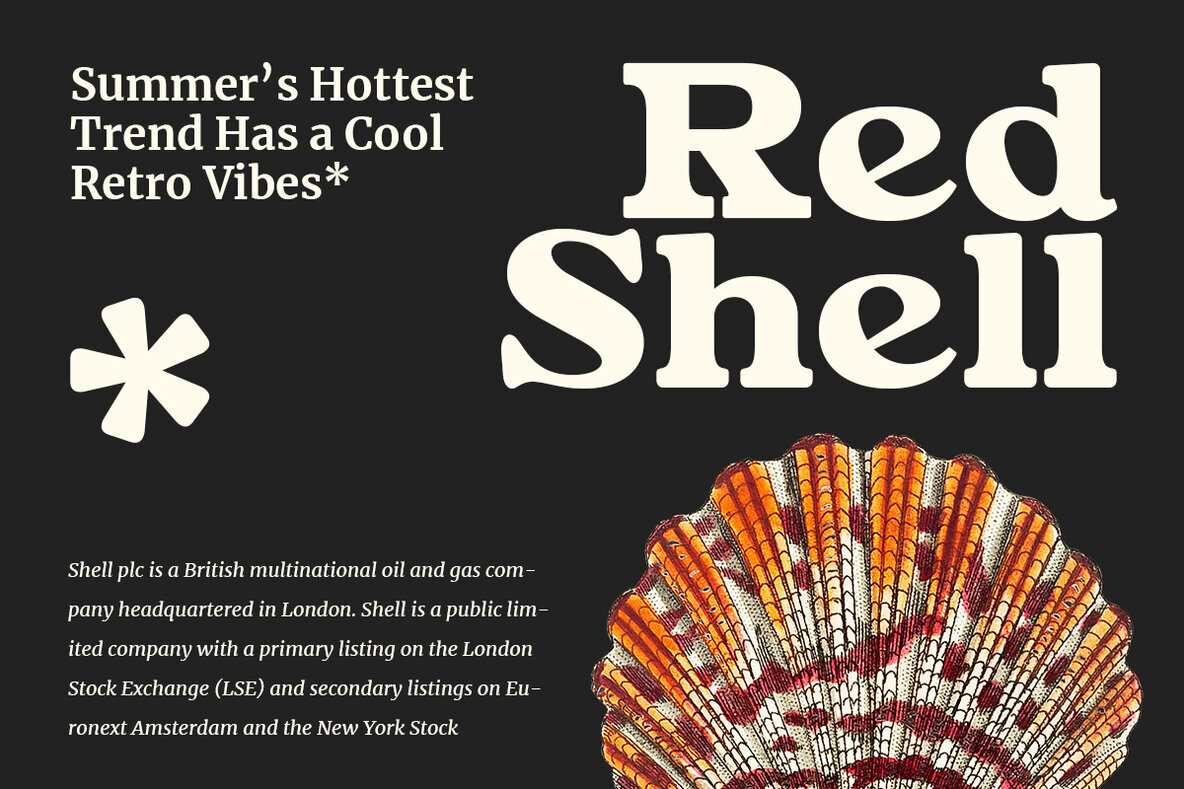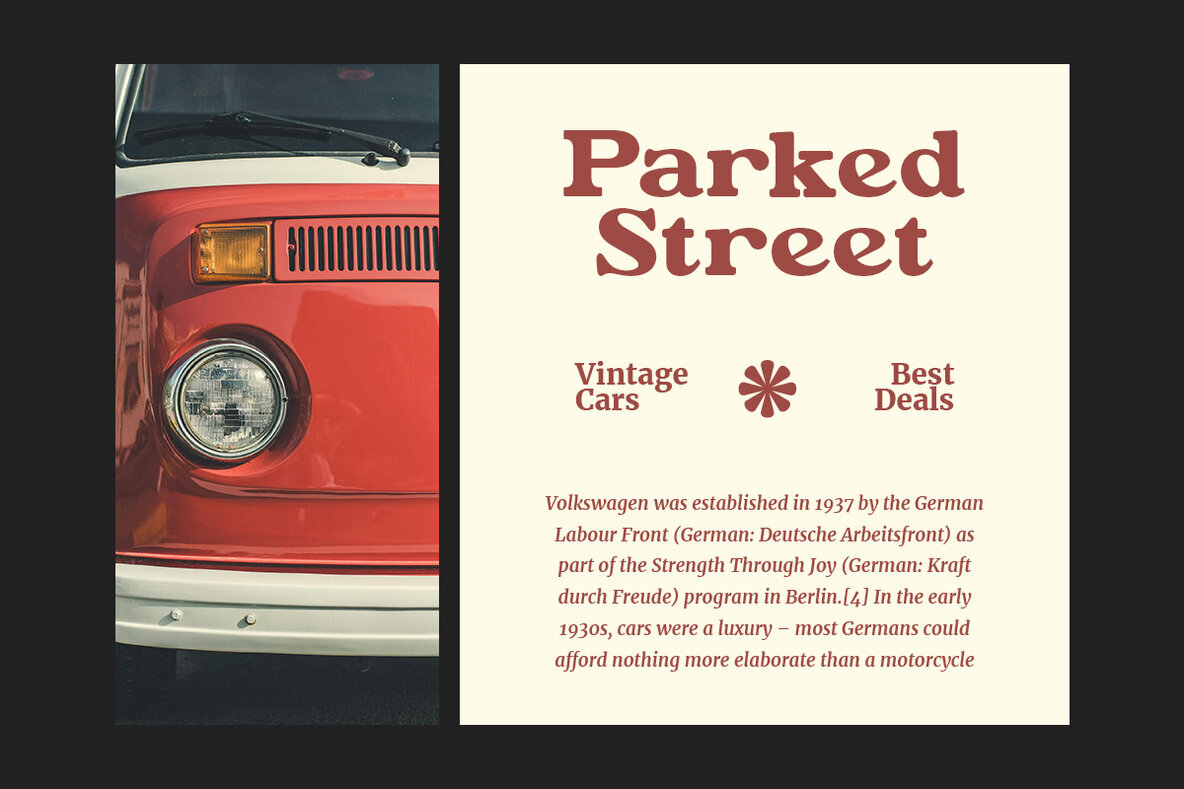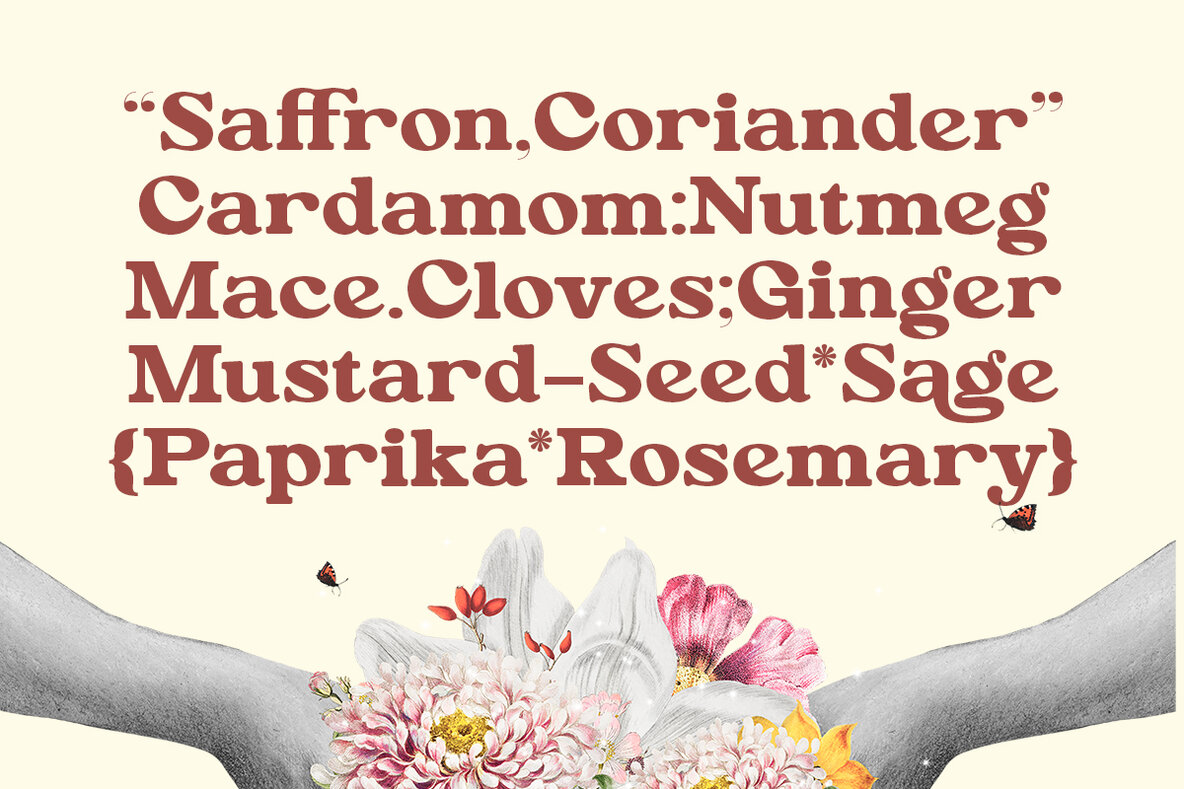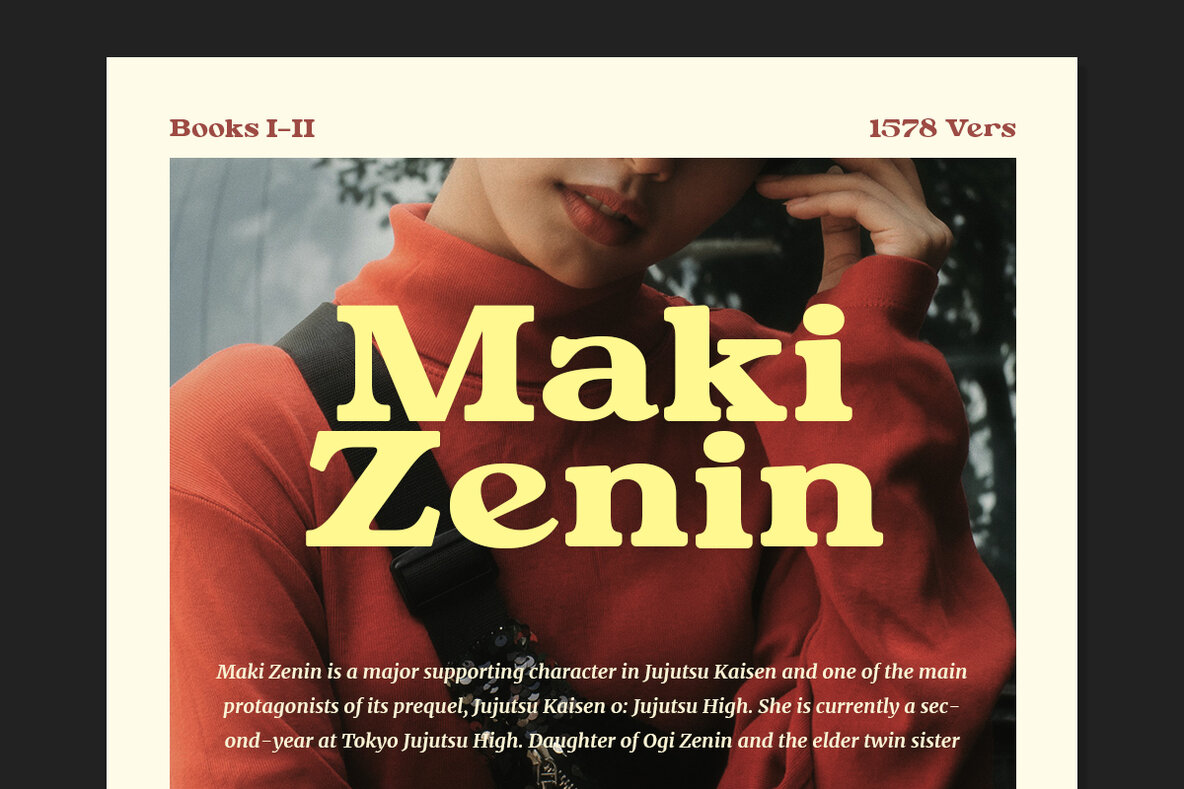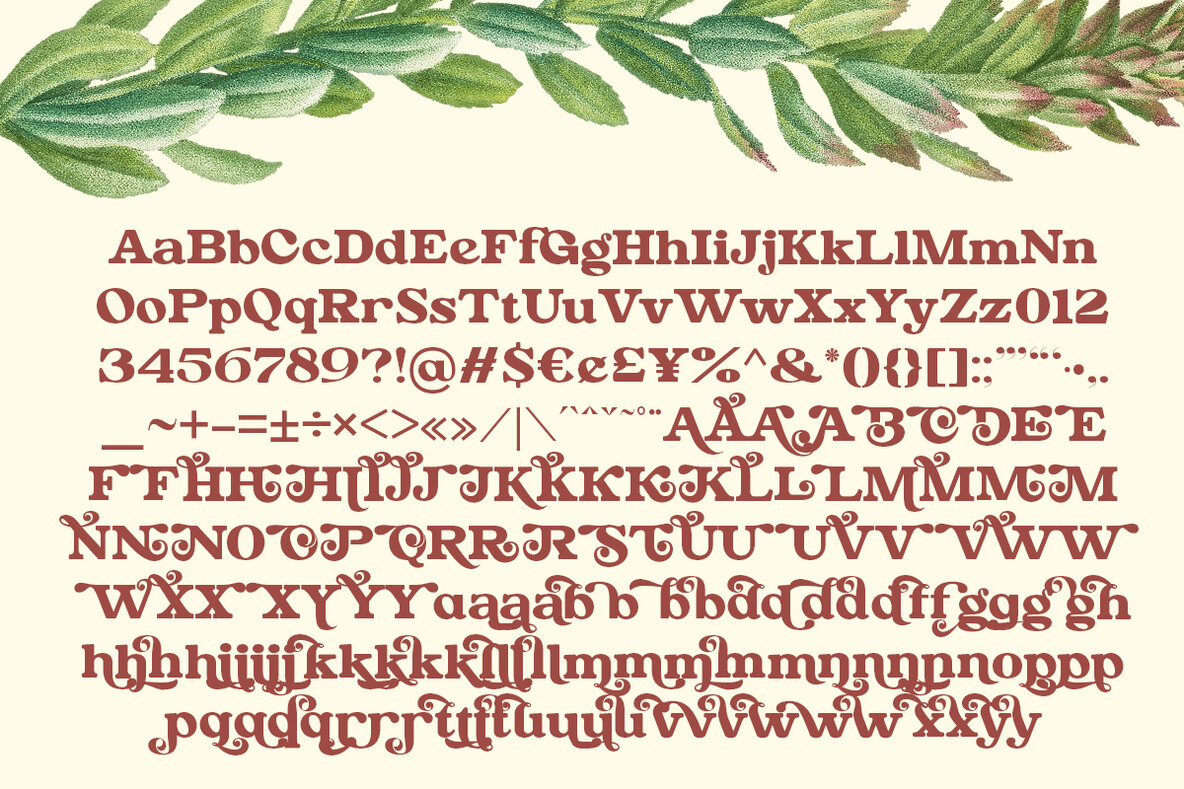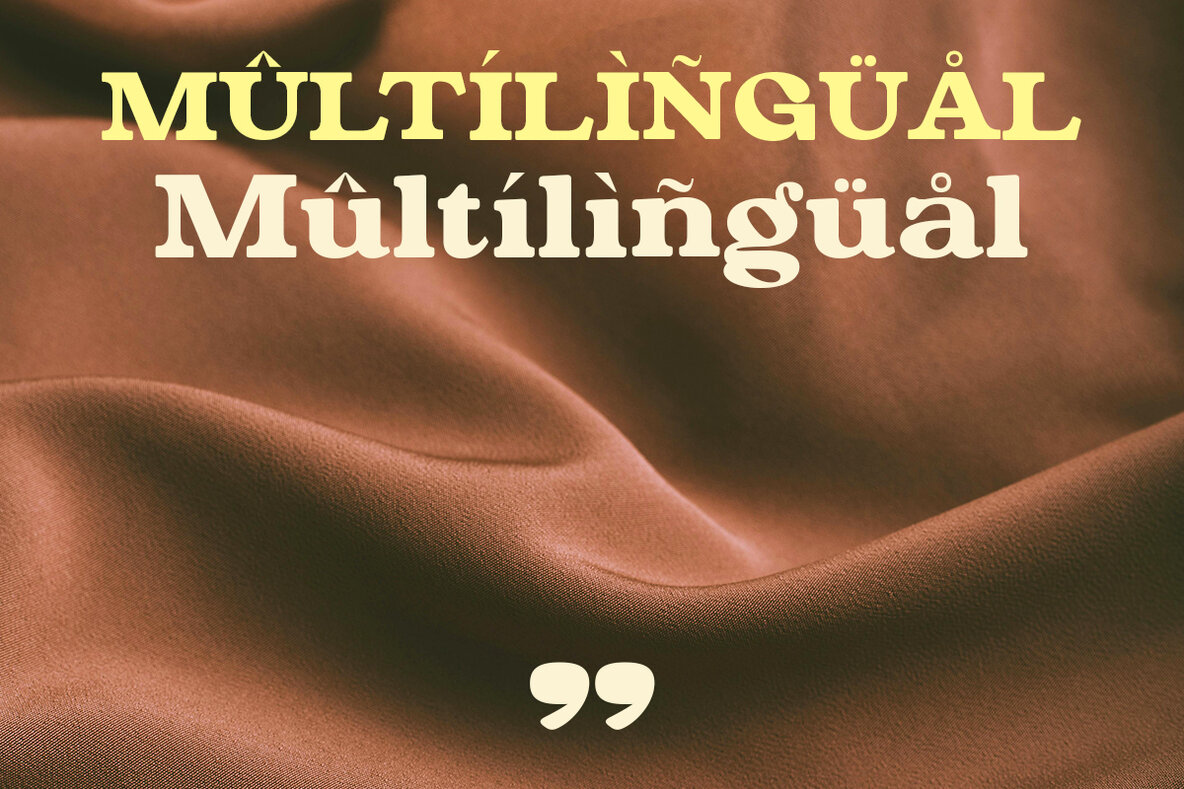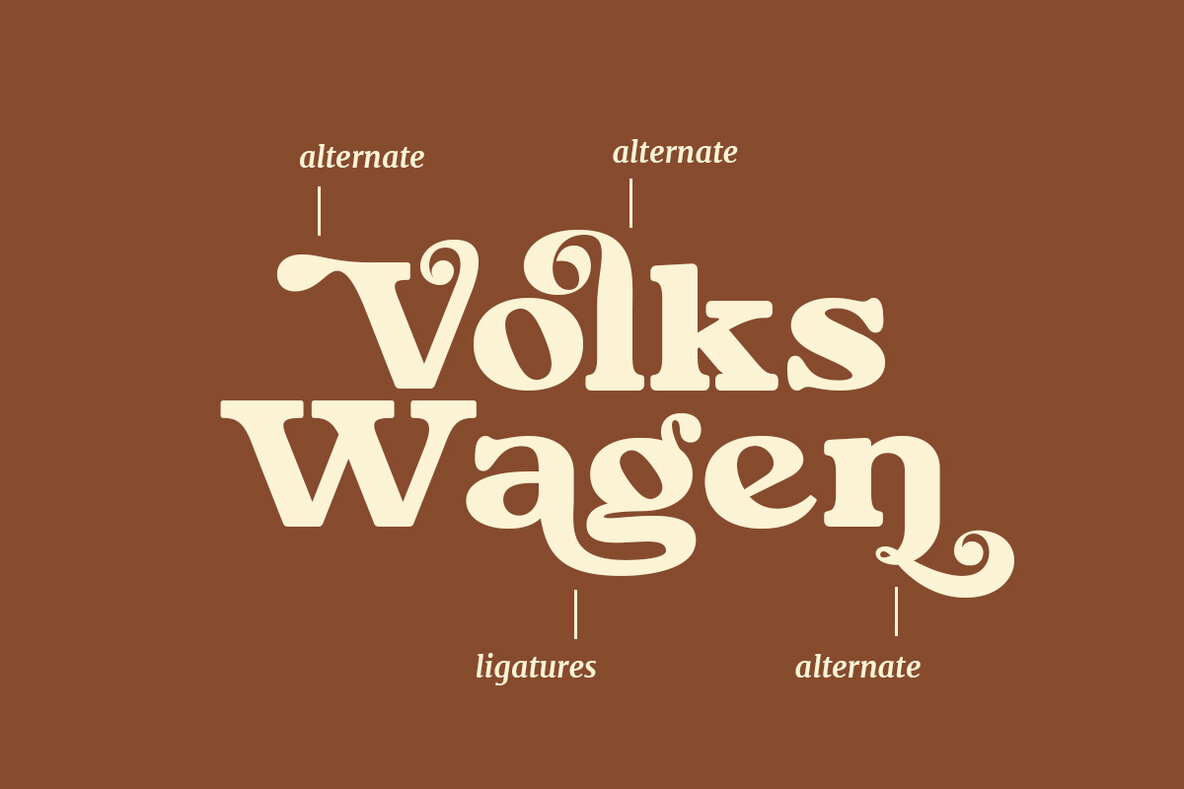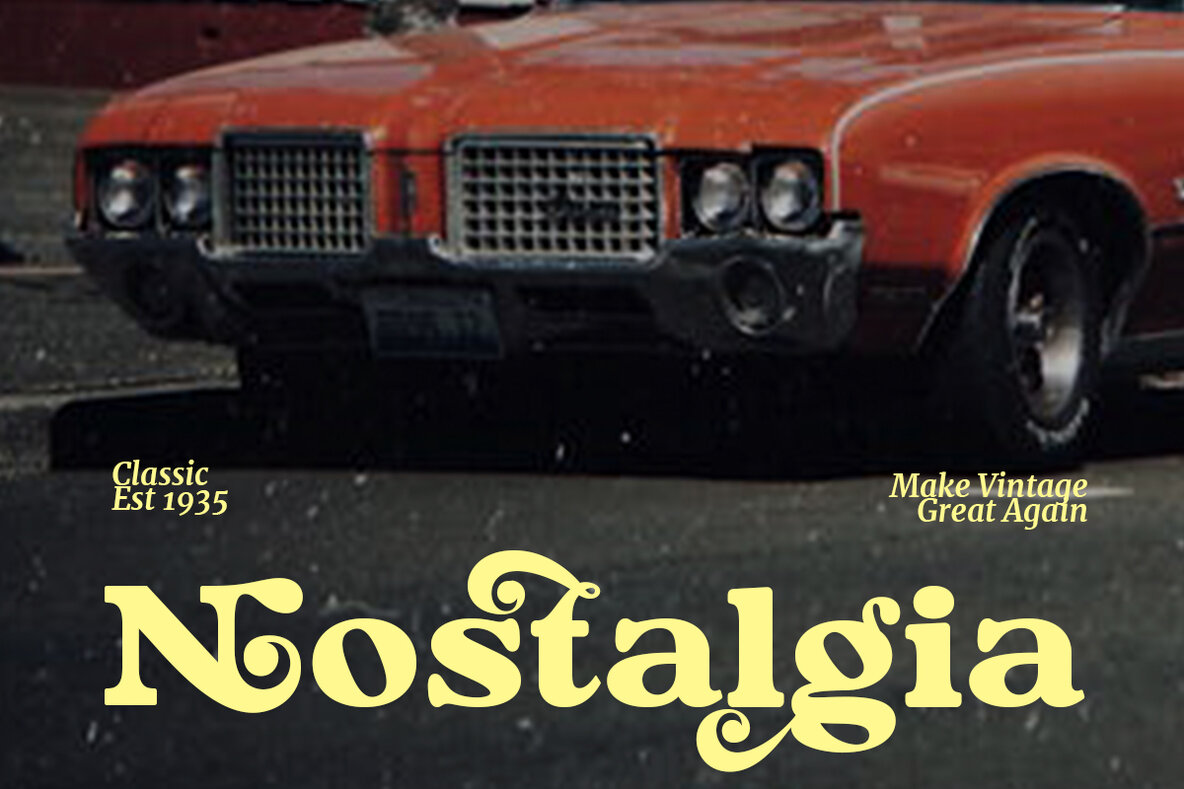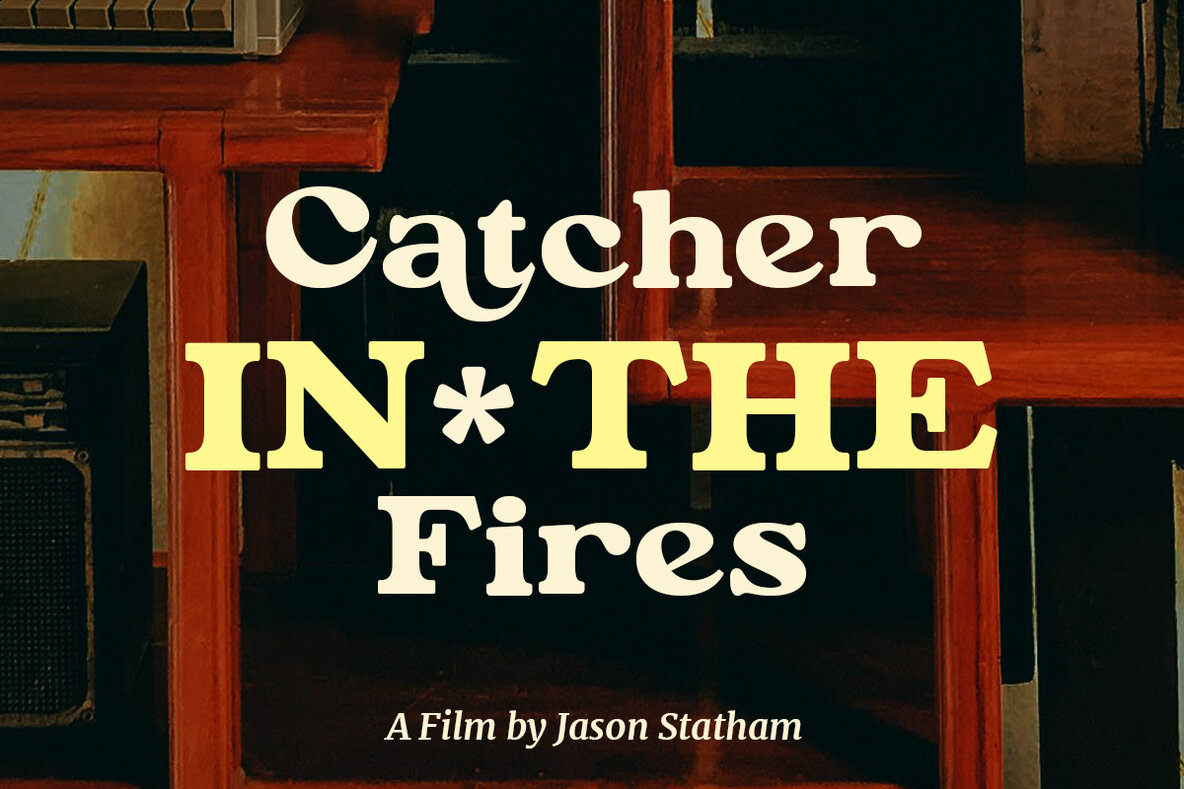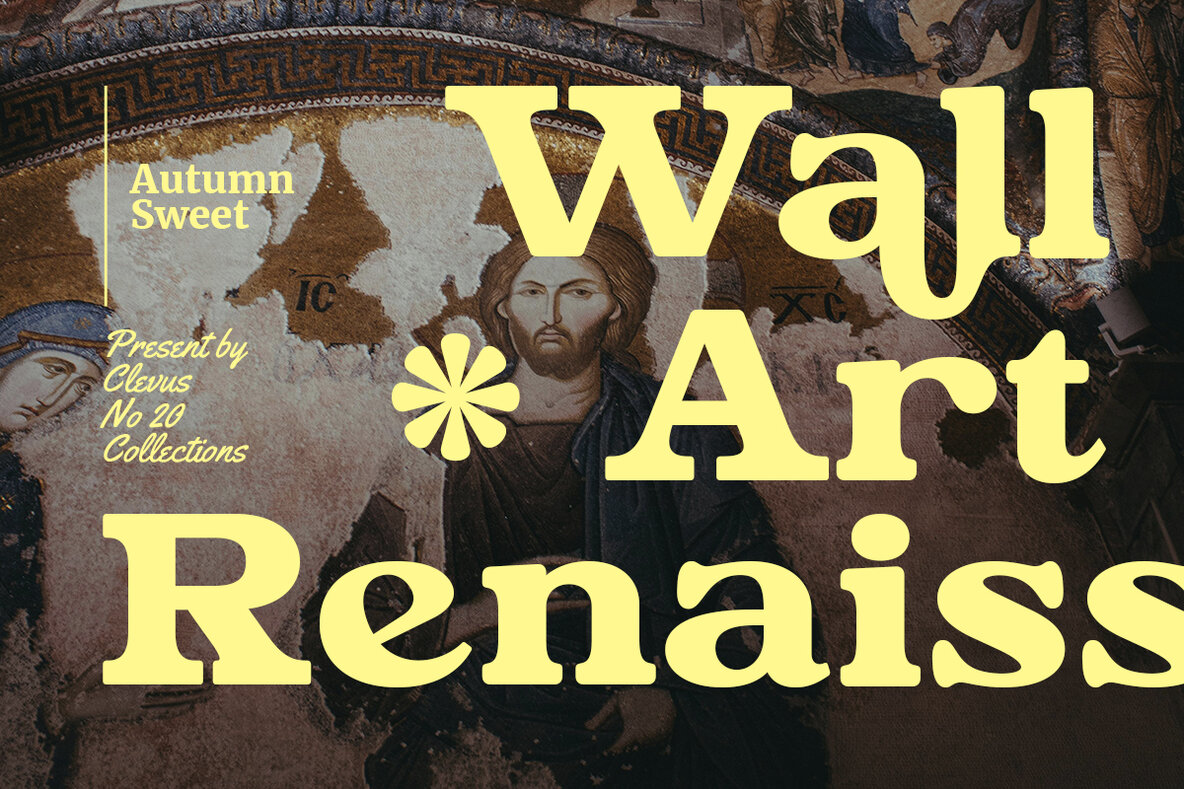
Autumn Sweet Font
Autumn Sweet Regular
"Autumn Sweet" is a carefully designed modern bold serif font that combines both contemporary and vintage aesthetics. Its unique style, featuring alternatives and ligatures, helps you craft stunning logos, quotes, blog posts, branding projects, magazine imagery, wedding invitations, and more.Autumn Sweet: Modern Bold Serif Font